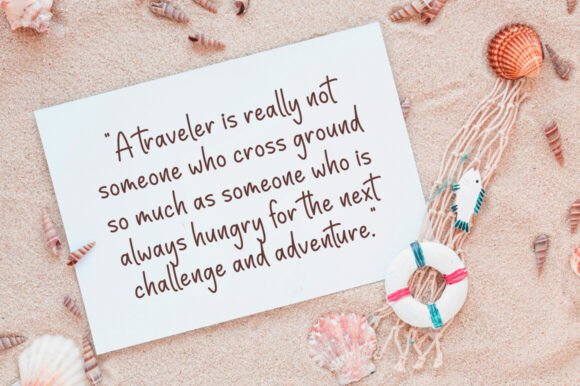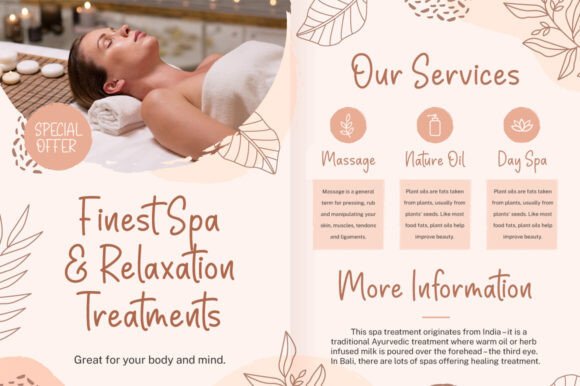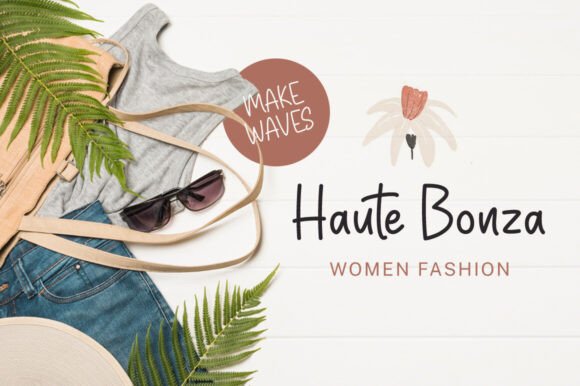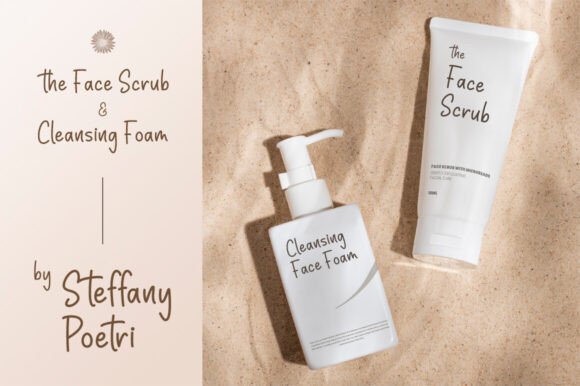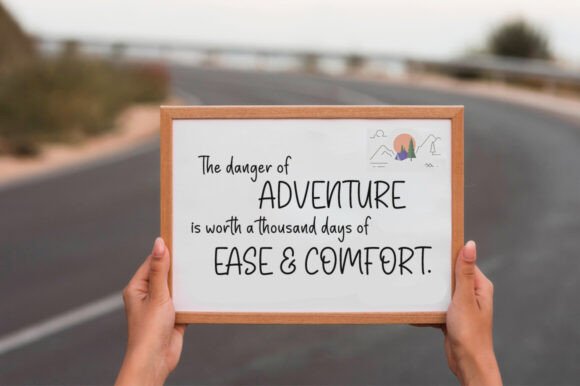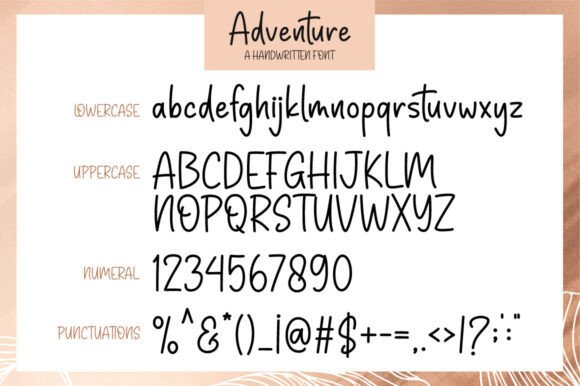
Embarking on a Creative Quest: Introducing Adventure Font
Have you ever found yourself staring at a blank canvas, waiting for the perfect spark to ignite your creativity? For many designers, that moment of inspiration is what drives us to push the boundaries of our art. And for those seeking the perfect tool to fuel their imagination, we’re excited to introduce the Adventure Font – a timeless, handwritten font that’s sure to captivate your audience.
This charming font is designed to evoke a sense of adventure and freedom, making it the ideal choice for creating eye-catching logos, branding, and quotes. Whether you’re crafting a bold new logo or a heartfelt quote, Adventure Font’s versatility and charm will help you convey your message in a way that resonates with your audience.
Adventure Font Key Features
- Font Family: Adventure Font is a modern, hand-drawn font family designed for use in various digital and print applications.
- Character Set: The font family includes a wide range of characters, including uppercase and lowercase letters, numbers, punctuation, and special characters, making it suitable for various languages.
- Unique Characteristics: Adventure Font features a unique, hand-drawn design with subtle imperfections, giving it a personal and creative feel. The font is perfect for use in headings, titles, and other display typography.
Adventure Font Review
Overall, I’d say the Adventure Font is an interesting addition to any design project, but it’s not without its quirks. Here are my thoughts:
- The font’s distressed, hand-drawn feel is perfect for projects that need a bit of rugged charm.
- The Adventure Font is highly legible, even at small font sizes, making it suitable for a wide range of applications.
- The font’s unique character set is full of personality and adds to the overall whimsy of the design.
- The font’s inconsistent letter spacing can make it difficult to read in certain situations.
- The Adventure Font’s design can be quite busy, which may not be suitable for projects that require a clean, minimalist look.
- The font’s availability in a limited number of weights and styles may limit its versatility.
Overall, I’d recommend the Adventure Font for projects that need a unique, eye-catching look. However, it may not be the best choice for more formal or straightforward designs.
Tips for Getting the Most Out of Adventure Font
Use Adventure Font for headings and titles to add a touch of excitement and adventure to your designs.
Pair Adventure Font with a clean and simple font for body text to create a visually appealing contrast.
Adventure Font is ideal for:
- Travel and tourism-related designs
- Adventure and outdoor-themed designs
- Marketing and promotional materials
- Personal projects and DIY designs
Pacifico is a beautiful, elegant script font ideal for creating a sense of luxury and sophistication. It’s perfect for branding, packaging, and advertising materials where a touch of class is required. Compared to Adventure Font, Pacifico has a more refined and polished look, making it suitable for high-end designs.
Great Vibes is a modern, cursive script font that’s perfect for creating a fun and playful atmosphere. It’s ideal for designs that require a sense of energy and excitement, such as event invitations, social media graphics, and youth-oriented materials. Compared to Adventure Font, Great Vibes has a more relaxed and casual feel, making it suitable for designs that need to convey a carefree vibe.
Is the Adventure Font suitable for digital displays?
Yes, the Adventure Font is optimized for digital displays and is suitable for use in various digital applications, such as websites, mobile apps, and digital signage. The font is designed to be clear and legible at small font sizes, making it perfect for digital use.